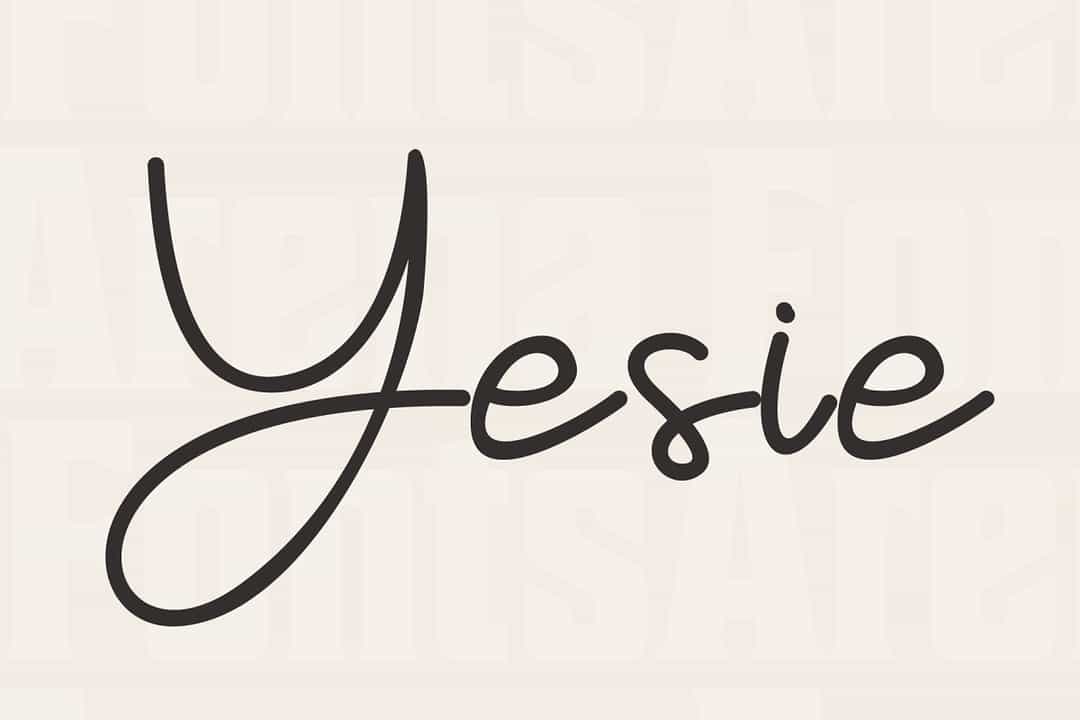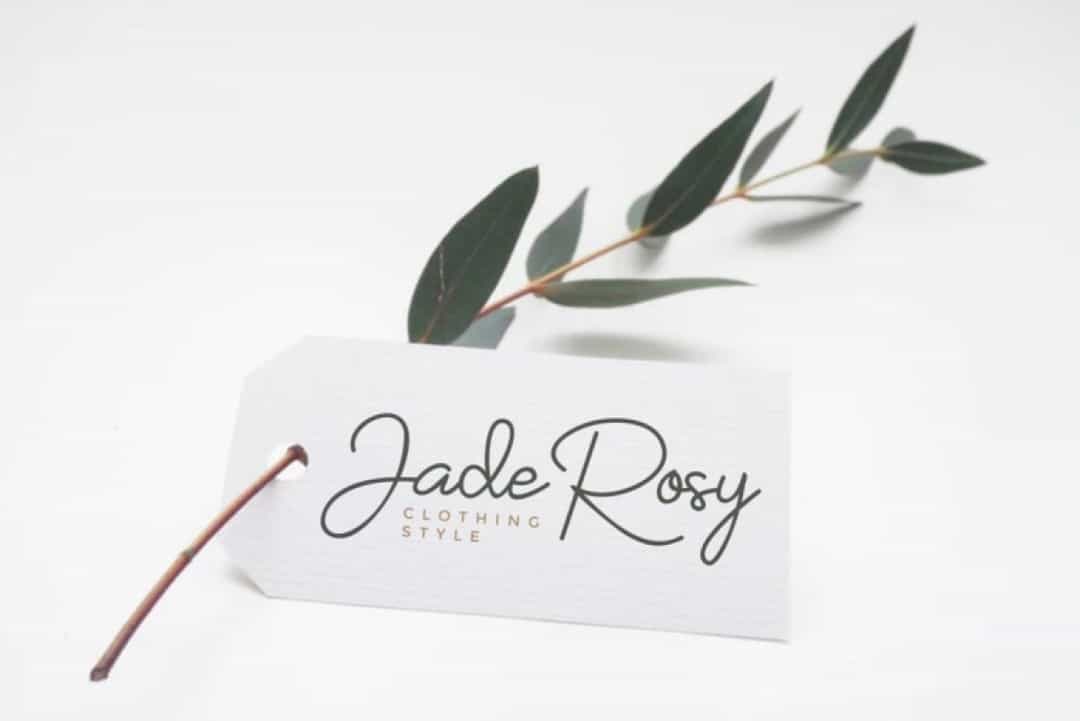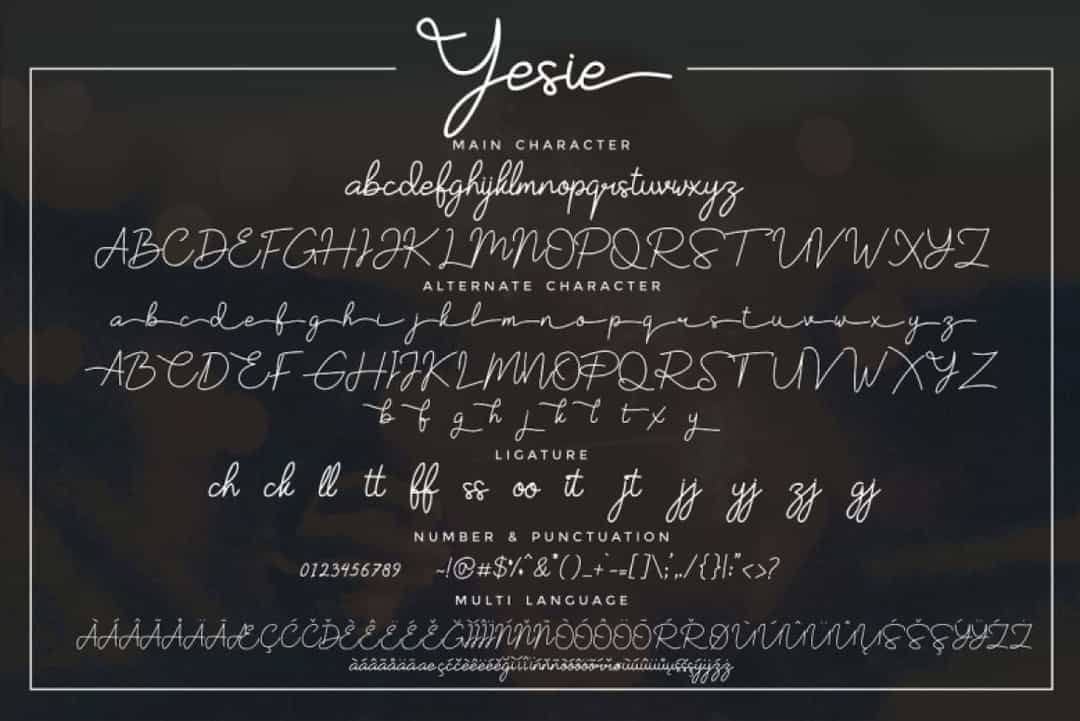
YESIE is a monoline cursive script font, can be easily read written and would be suitable for many different purposes. It performs well with the use of for headlines, titles, heading, logos, posters, invitation,brochure and branding. This font has all the uppercase and lowercase english alphabets, numbers, punctuation, symbol and multi language.